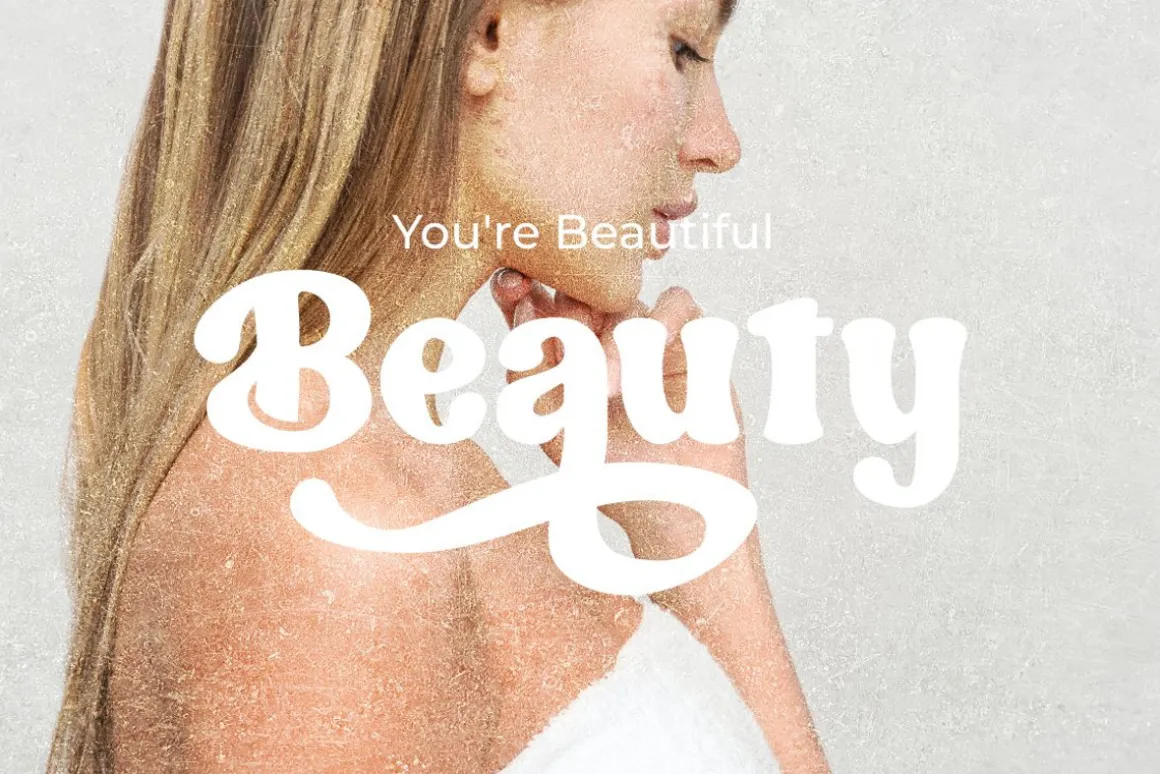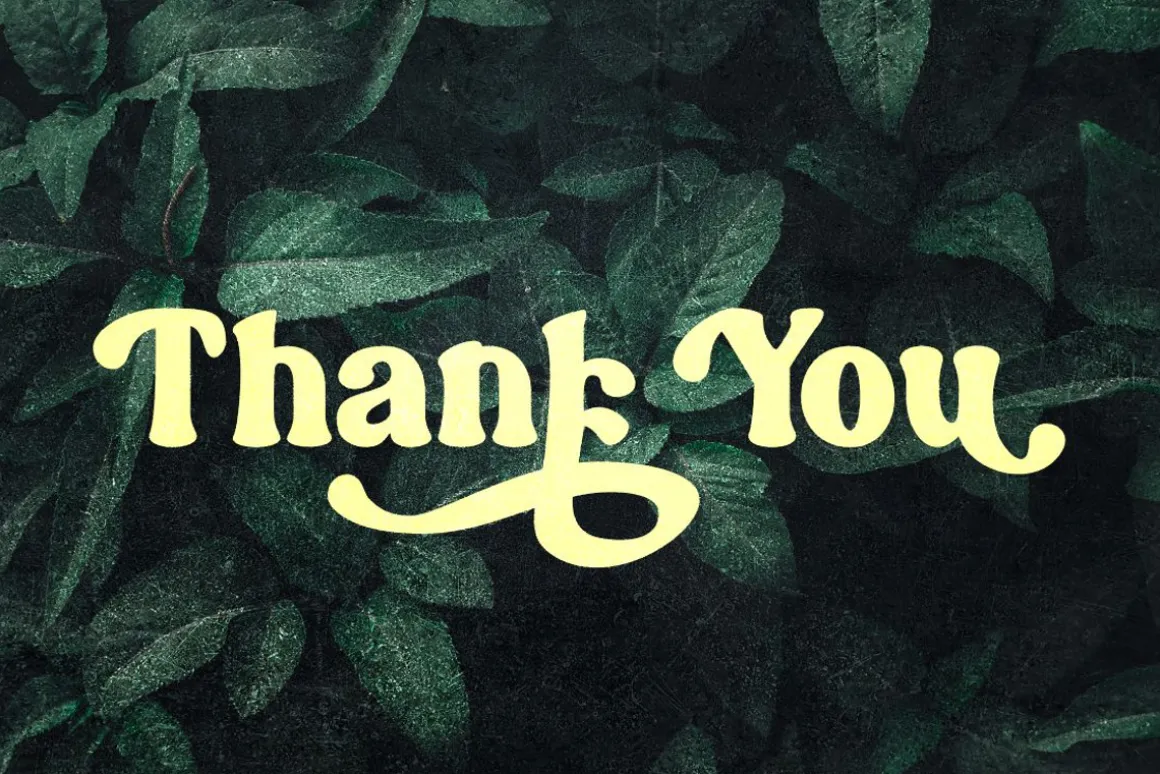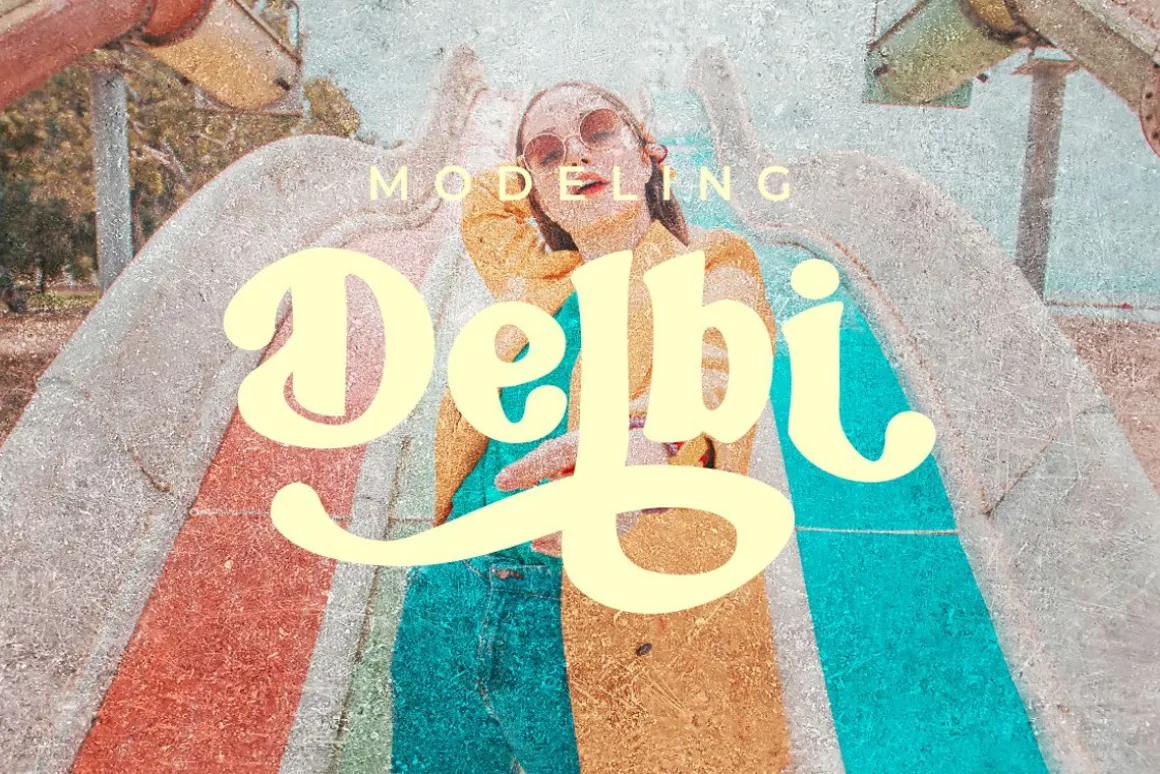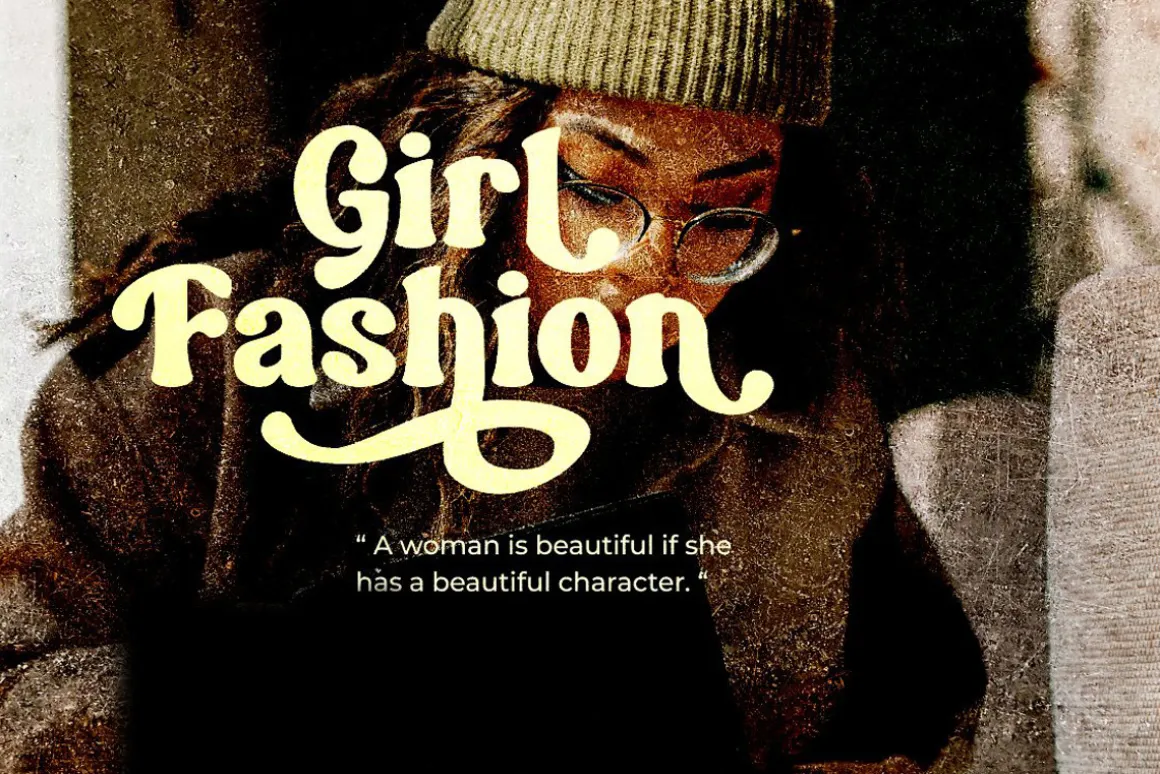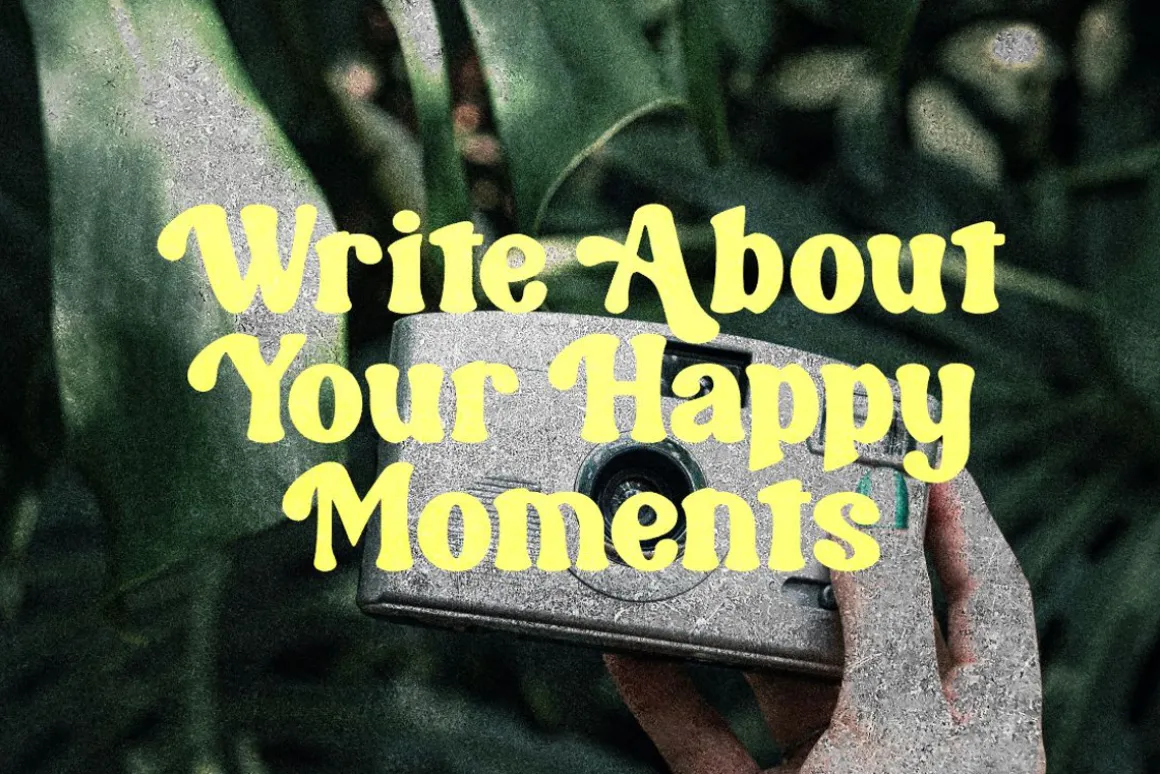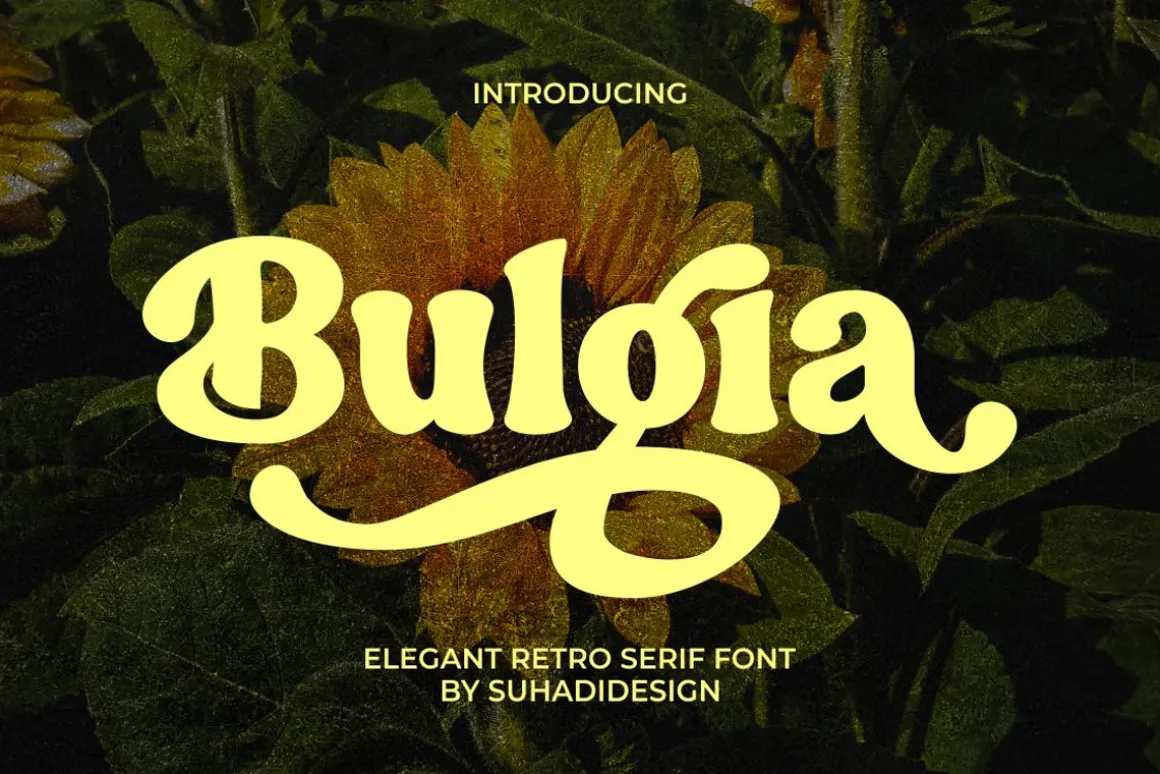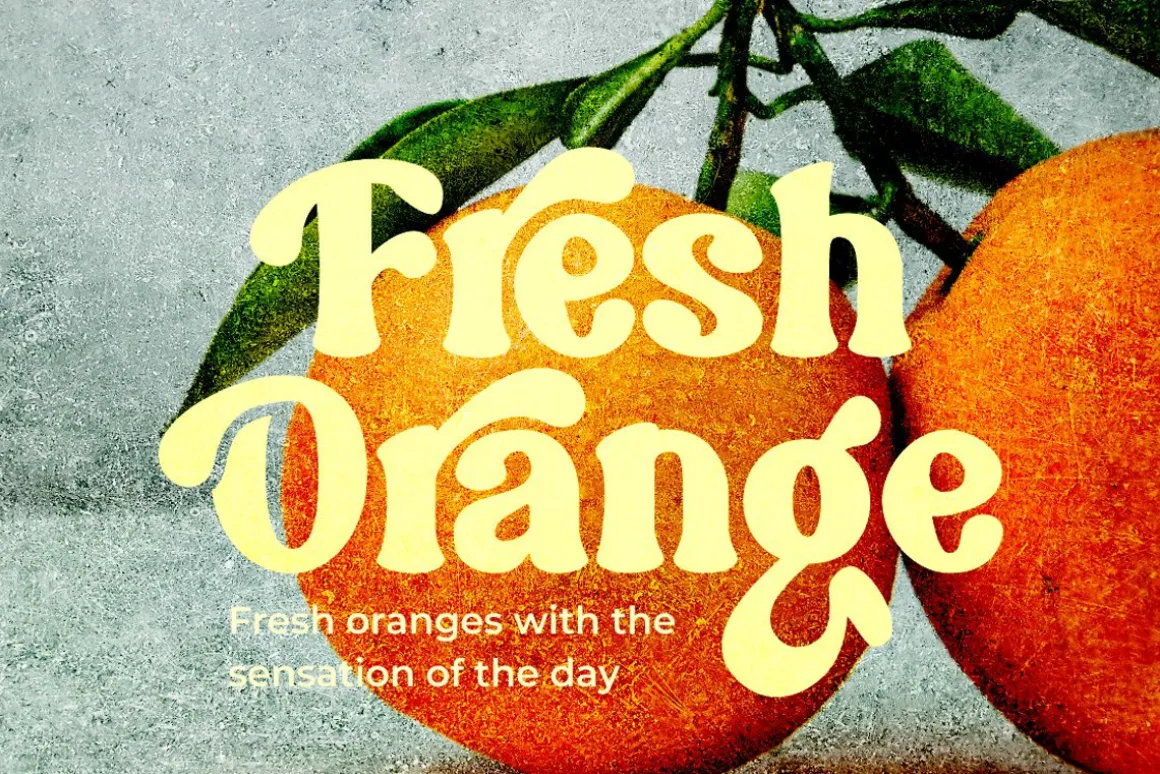
Bulgia Elegant Retro Serif Font
Hi Ladies and Gentlemen! According to the market demand for fonts that tend to be more modern, then I decided to make a serif font that is in your view. The Bulgia font is a serif font with very beautiful and popular alternates, comes with a modern style hoping to become a market favorite. We keep this font looking elegant, classy, easy to read, stylish, attractive and easy to use. Bulgia Font is a great choice for magazines, wedding invitations, retro designs, newspapers, books, brand names, brand, branding, quotes, album covers, and other projects. The Bulgia font is here to take the quality of your designs to a higher level.
Font Features:
• Standard uppercase and lowercase letters• Stylistic alternate uppercase• Stylistic set 01 lowercase• Stylistic set 02 lowercase• Stylistic ligatures• Multilingual Support• Numeral and punctuation